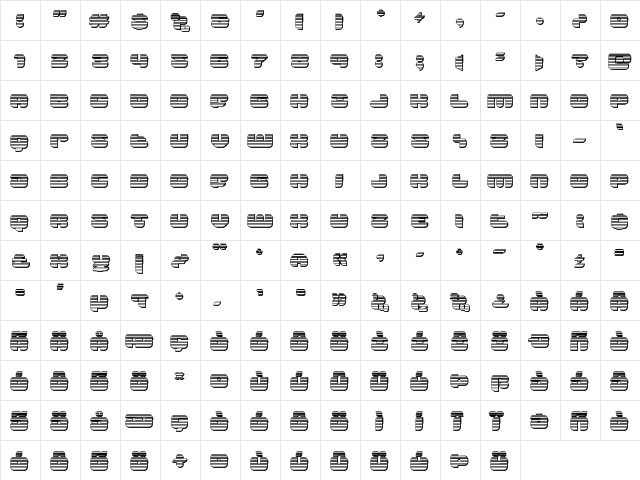
Groovy Smoothie Chrome Regular
Design Context for Groovy Smoothie Chrome Typeface
Groovy Smoothie Chrome is a composed and adaptable typeface that performs quietly and consistently across a wide range of design contexts.
Pro Tip: Use Groovy Smoothie Chrome in both headline and body roles to test its range before committing to a single application.